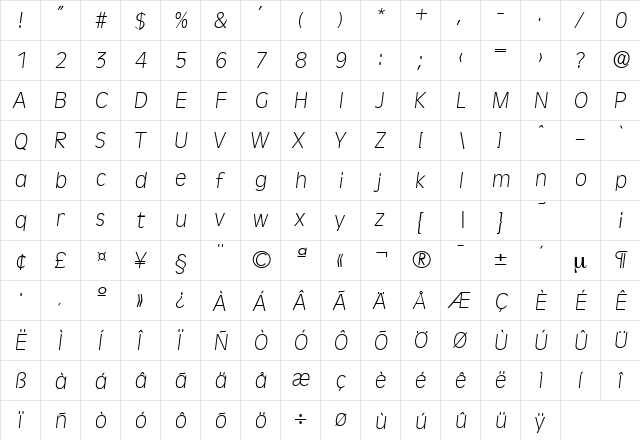
Ravenna-Serial-ExtraLight RegularItalic
Design Context for Ravenna-Serial-ExtraLight Typeface
Ravenna-Serial-ExtraLight is a composed and adaptable typeface that performs quietly and consistently across a wide range of design contexts. Its italic angle brings a sense of urgency and motion to the letterforms. Its slender proportions lend an understated elegance to any composition.